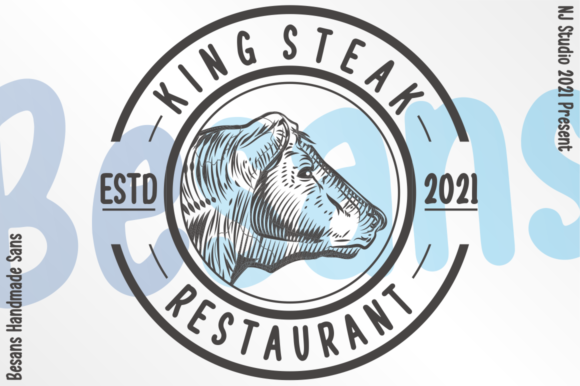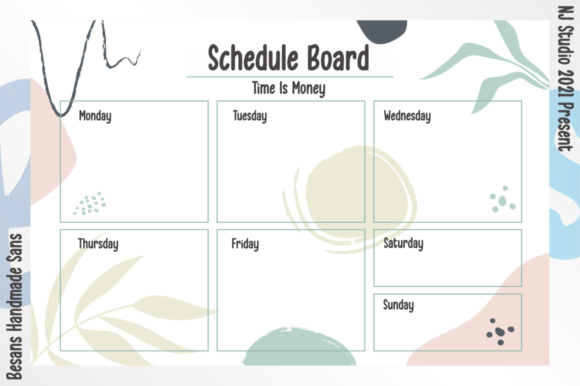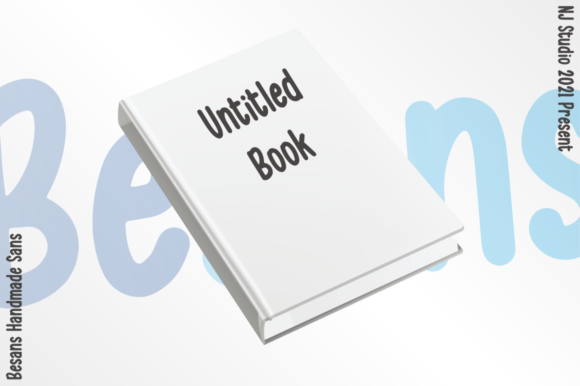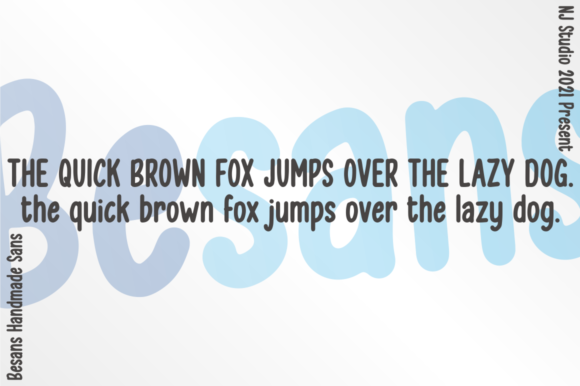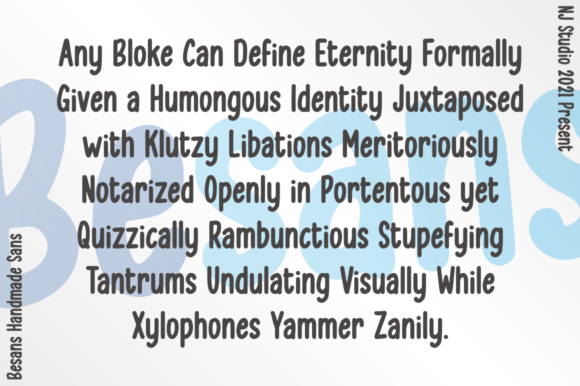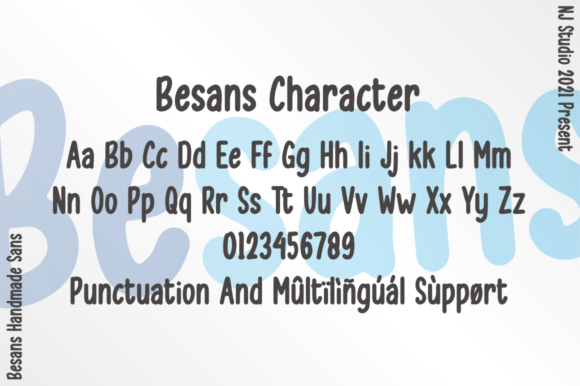
Introducing Besans Font: The Ultimate Display Font for Creative Projects
Are you tired of using the same old fonts for your design projects? Look no further than Besans Font, a clean, simple, and fun display font that’s perfect for making your creative ideas stand out. In this article, we’ll dive into the world of Besans Font and explore its features, benefits, and uses.
What is Besans Font?
Besans Font is a modern display font that’s designed to add a touch of elegance and sophistication to your designs. Its clean and simple lines make it easy to read and versatile enough to be used in a wide range of projects, from logos and branding to posters, flyers, and more.
One of the standout features of Besans Font is its fun and playful vibe. It’s the perfect font for designers and crafters who want to add a bit of personality to their work without sacrificing legibility. Whether you’re creating a children’s book, a party invitation, or a social media graphic, Besans Font is sure to bring a smile to your audience’s face.
Key Features of Besans Font
- Clean and Simple Design: Besans Font features clean and simple lines that make it easy to read and versatile enough to be used in a wide range of projects.
- Fun and Playful Vibe: Besans Font has a fun and playful personality that’s perfect for designers and crafters who want to add a bit of whimsy to their work.
- Highly Versatile: Besans Font can be used in a wide range of projects, from logos and branding to posters, flyers, and more.
- Easy to Read: Besans Font is designed to be easy to read, even at small sizes.
Benefits of Using Besans Font
So why should you choose Besans Font for your next design project? Here are just a few benefits of using this amazing display font:
- Adds Personality to Your Designs: Besans Font is the perfect way to add a bit of personality to your designs and make them stand out from the crowd.
- Versatile and Flexible: Besans Font can be used in a wide range of projects, from formal to informal, and can be paired with a variety of other fonts and design elements.
- High-Quality Design: Besans Font is designed to high standards, with clean lines, clear lettering, and a professional finish.
Using Besans Font in Your Designs
So how can you use Besans Font in your designs? Here are a few ideas to get you started:
- Logos and Branding: Use Besans Font to create a unique and memorable logo for your business or brand.
- Posters and Flyers: Add a pop of personality to your posters and flyers with Besans Font.
- Social Media Graphics: Use Besans Font to create eye-catching social media graphics that will help your posts stand out.
- Children’s Books and Party Invitations: Besans Font is perfect for children’s books and party invitations, adding a fun and playful touch to your designs.
In conclusion, Besans Font is a clean, simple, and fun display font that’s perfect for designers and crafters who want to add a bit of personality to their work. With its highly versatile design, easy-to-read lines, and professional finish, Besans Font is the perfect choice for a wide range of projects. So why not give Besans Font a try and see how it can make your designs stand out?